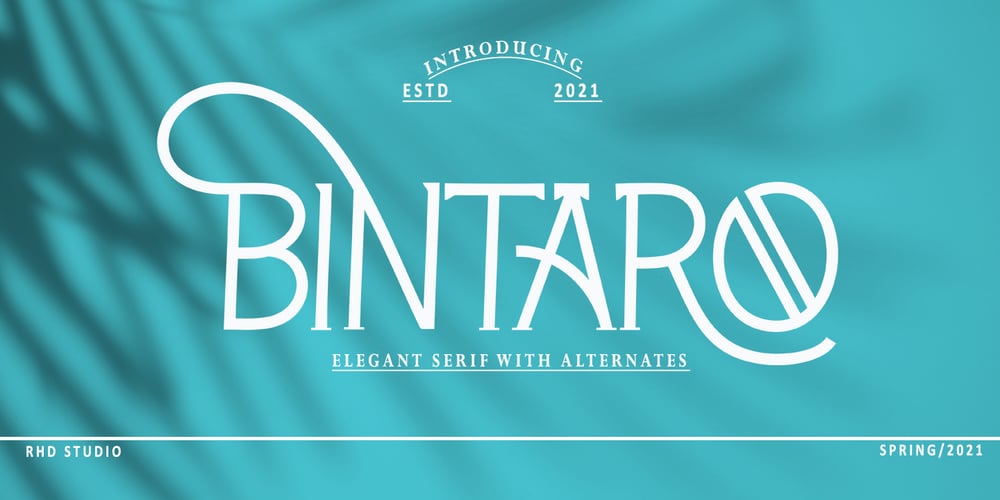
Bintaro Font Family was designed by Rahmad Rizky and published by Rhd Studio. Bintaro contains 1 styles and family package options. BINTARO is a clean and powerful serif font with a bold, rounded shape. It comes with two regular styles, and outline. BINTARO is a good choice for a variety of projects such as logos & branding, invitations, stationery, social media posts, clothing, advertising, product packaging, product design, labels, photography, watermarks, special events or whatever.WHAT IS INCLUDED:Multilingual supportAlternatives A, B, E, F, P, RPUA Encoded